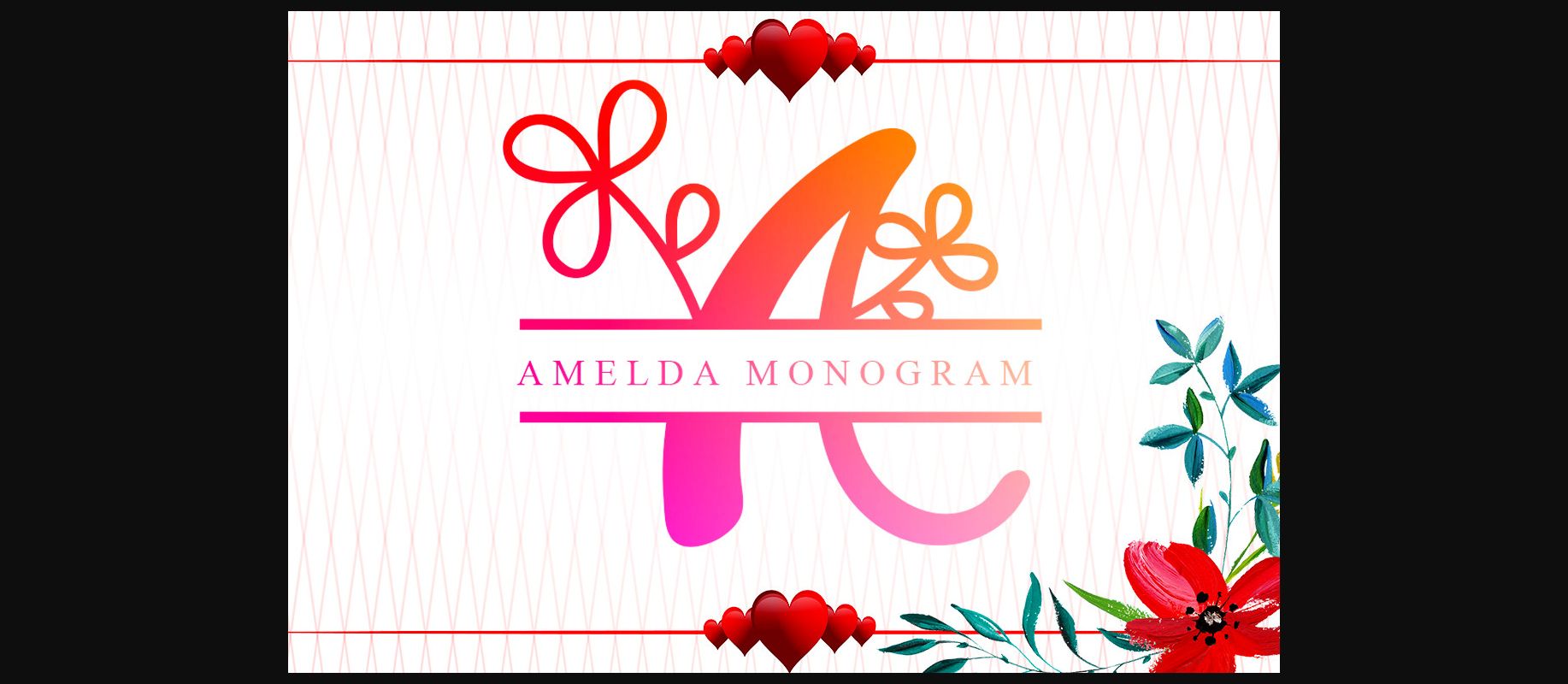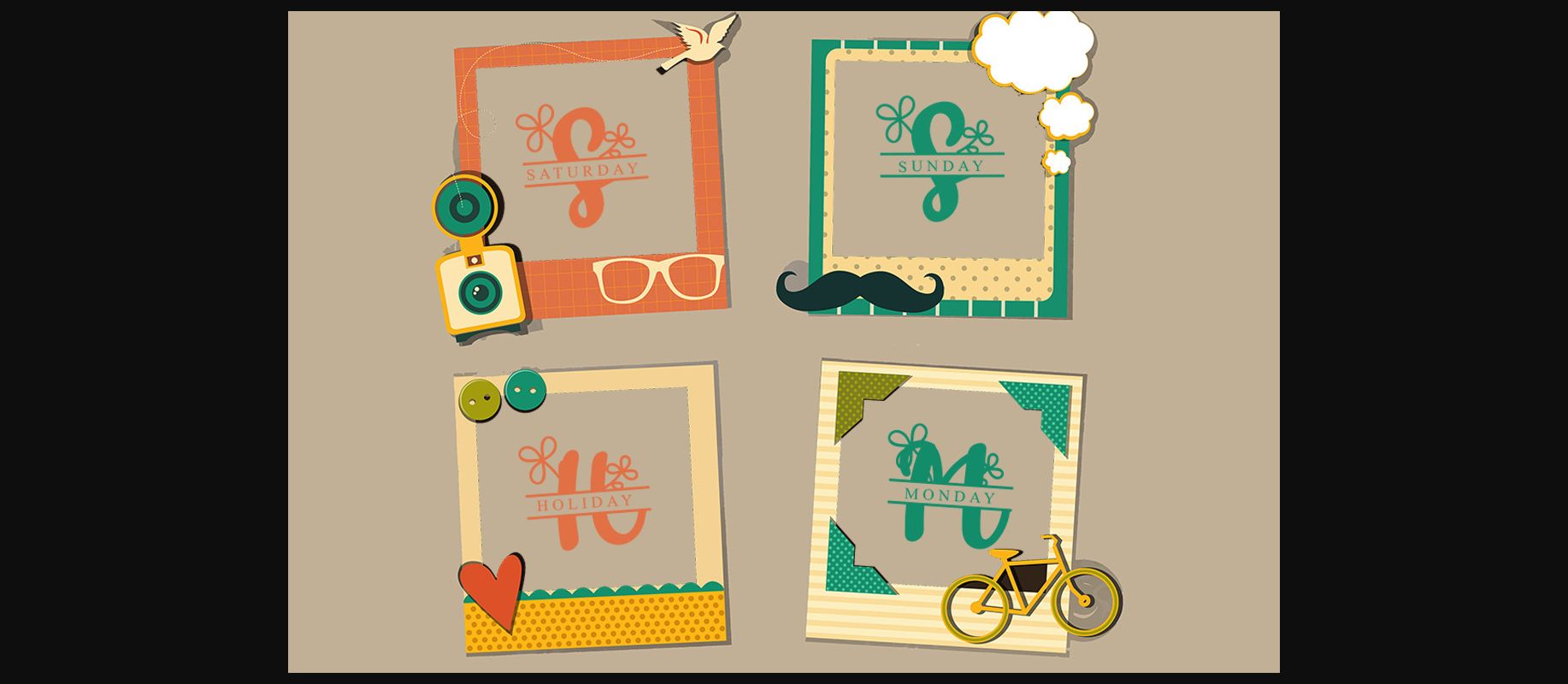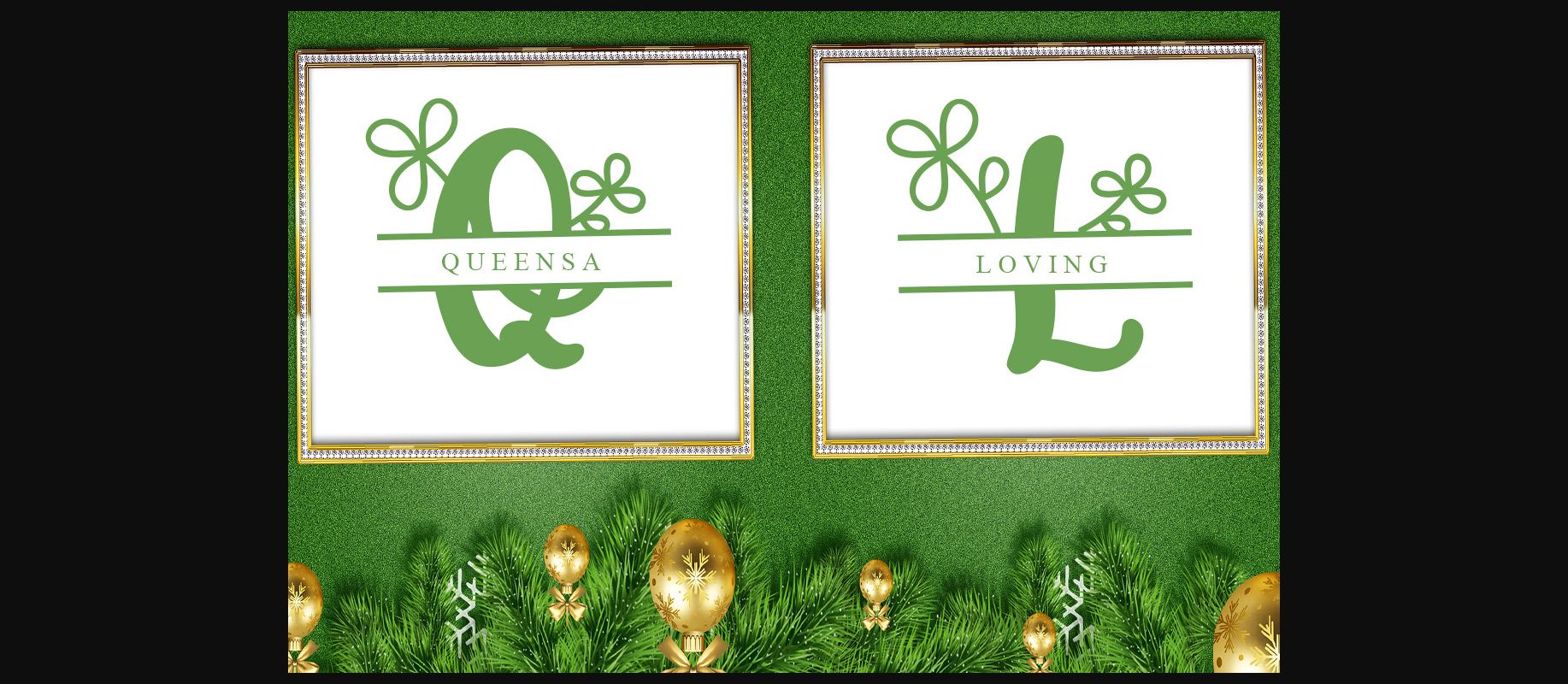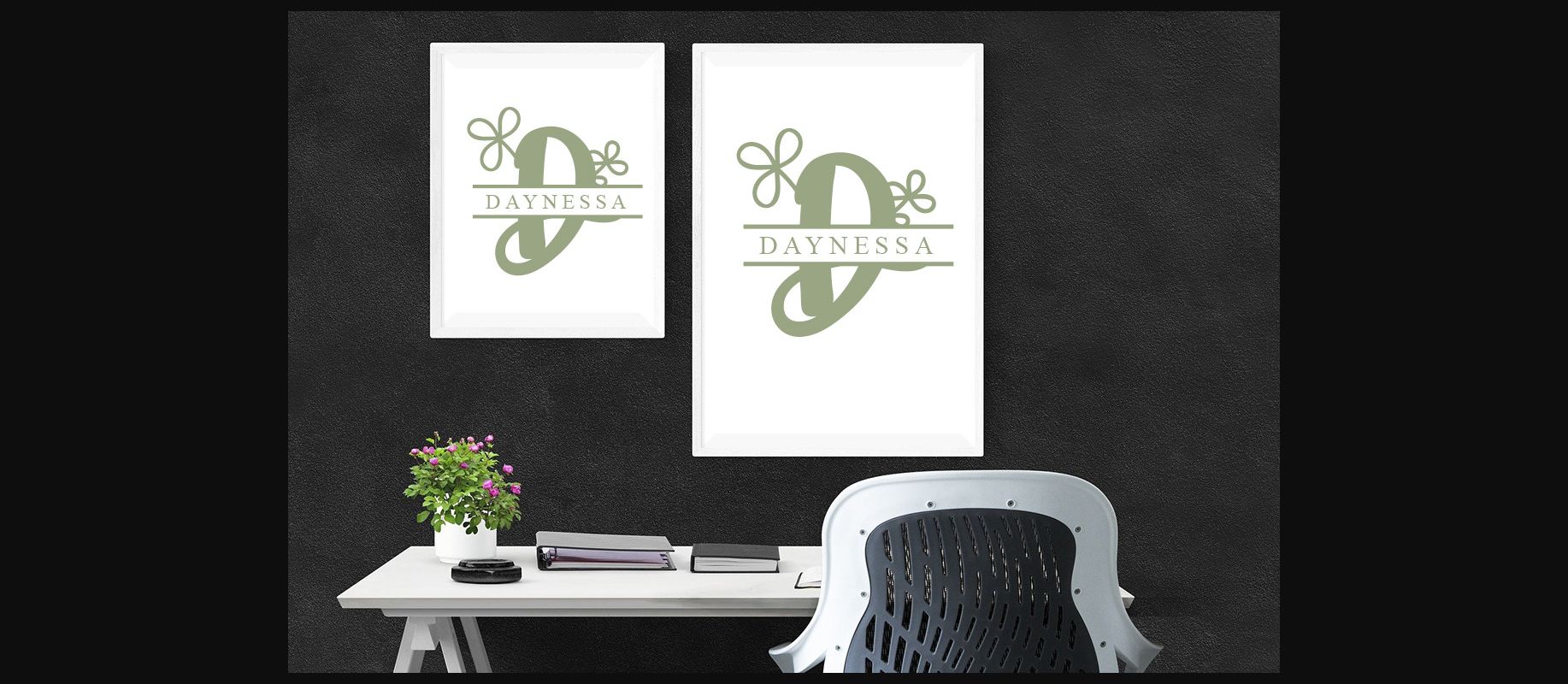
Amelda Monogram Font
About Amelda Monogram Font
Amelda Monogram is a highly detailed and sweet decorative font. Add this romantic and lovely looking font to each of your love letters, wedding invitations or favorite design ideas, and you will be astounded by the outcome.